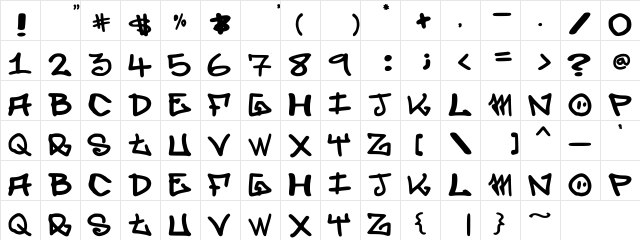
elevenoone hand1
elevenoone flows with the natural rhythm of handwritten lettering, making it ideal for designs that call for warmth and personal expression.
Font Pairing: Combine elevenoone with a simple geometric sans for maximum contrast — the tension between flowing curves and clean structure is a classic typographic pairing.
Pro Tip: Use elevenoone for short runs of text — names, titles, or taglines. Extended body copy in script faces tires the eye quickly.